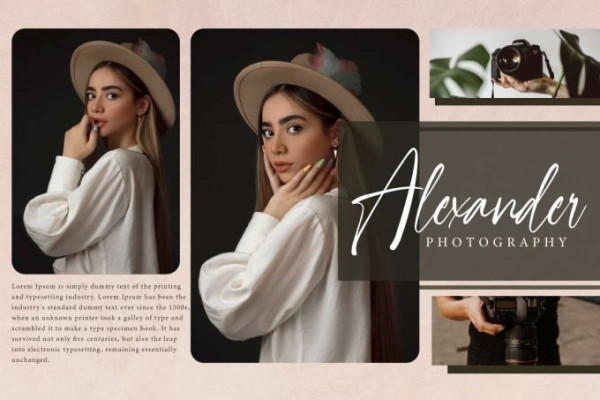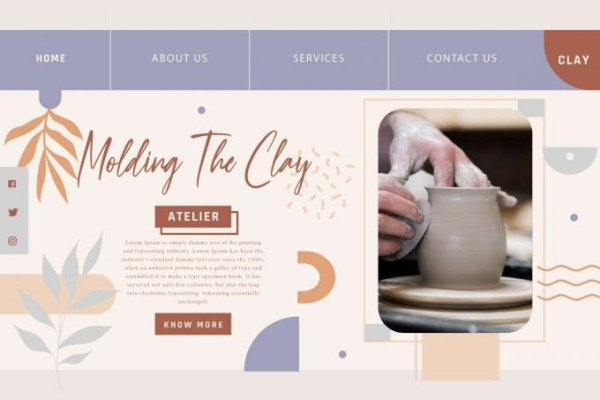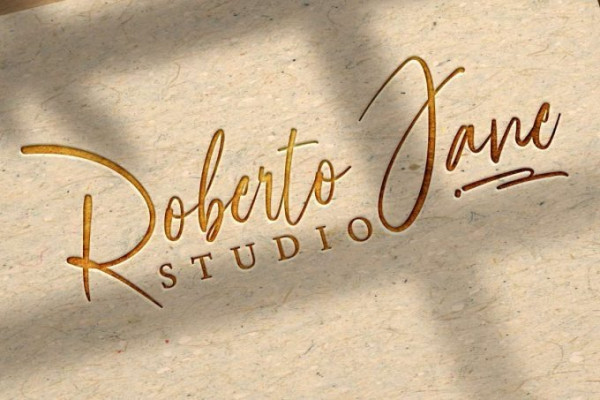
Roberto Jane Font
Roberto Jane Font is a sleek stylish script font with signature style. This font is made from a light thin brush that carries a modern concept and still easy to read. This font will be suitable for many industries, such as advertisement, beauty product, event or wedding organizer, digital marketing, fashion, handcraft, homeware, photography, printing, publishing, and more!
Roberto Jane Font includes full set of Uppercase and Lowercase Basic Characters, Numerals and Punctuation. This font also contain Ligature and Swoosh characters that will catch your eye and beg to be incorporated into the design immediately, such as brand logo, brochure, business card, custom design, frame art, label, packaging design, poster, quote, screen printing, stationery, website, etc.